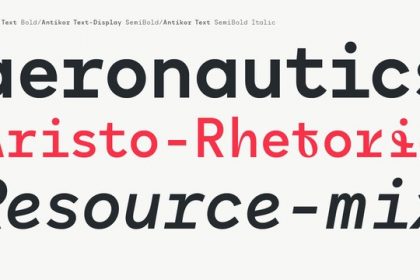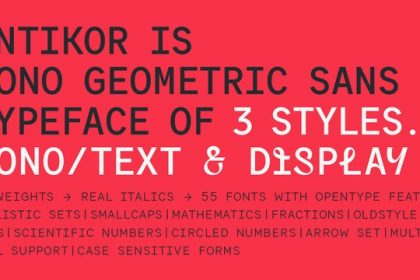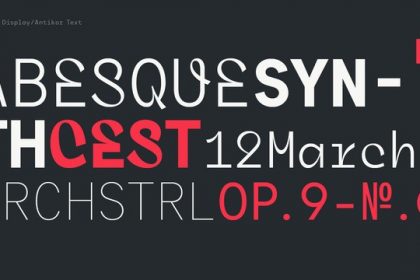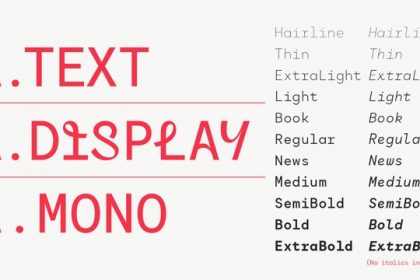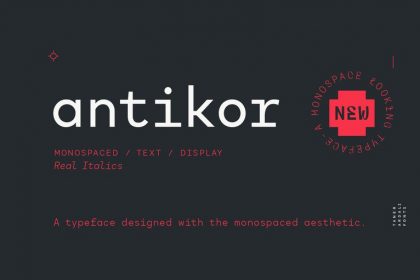
Antikor – Mono Geometric Font
The following is a geometric sans serif typeface. Introducing Antikor Font Family. It is a modern monospace font, both geometric. It’s characterized by it’s monolinear outline and it’s rounded endings that make it softer and easy to use in reading contexts as varied as possible. Antikor is “mono geometric sans” family consist of 3 styles, 55 fonts with real italics… All fonts of family contains 800+ glyphs, and equipped with many typographic features. Antikor Mono is geometric sans monospaced typeface with all typographic features except spacing and kerning. As other styles it has many opentype features and extended character set including SmallCaps, Stylistic Alternatives, Scientific Numbers, Fractions, Oldstyle Numbers, Case Sensitive Forms, Arrows, Circled numbers and etc… It is designed to meet all the needs of the monospaced text medias…